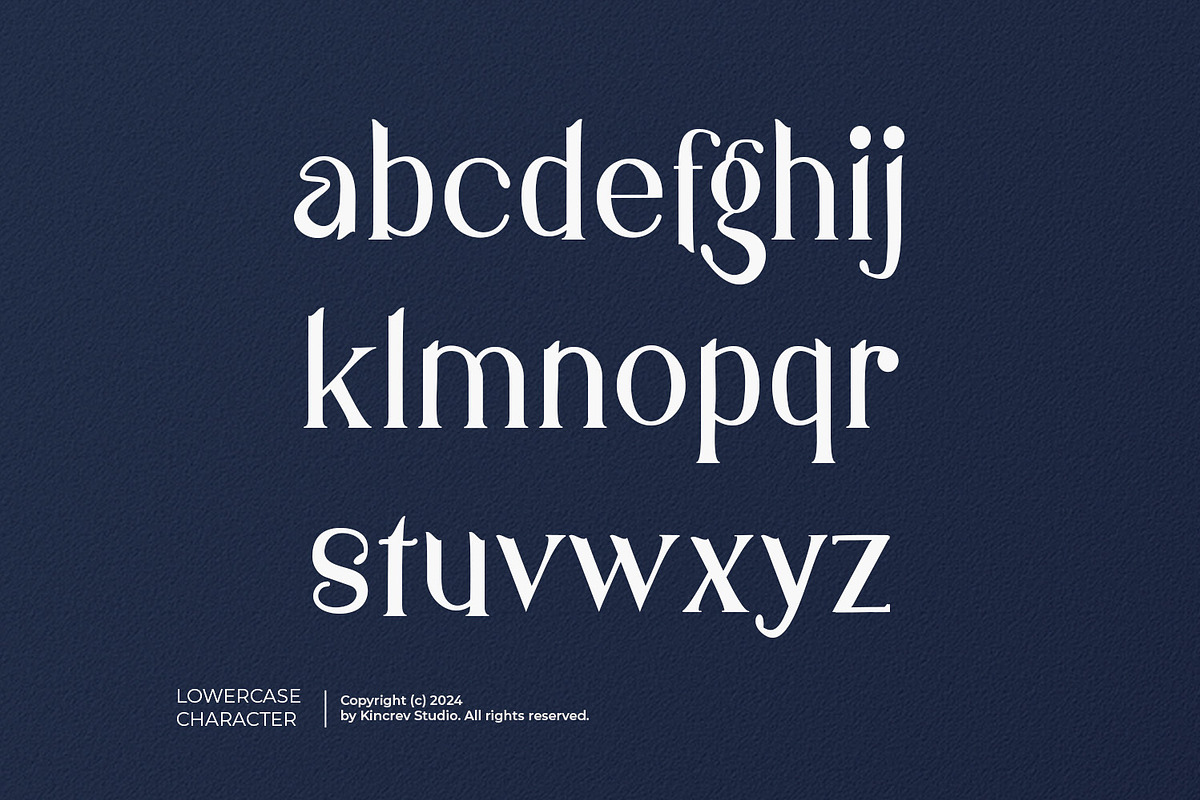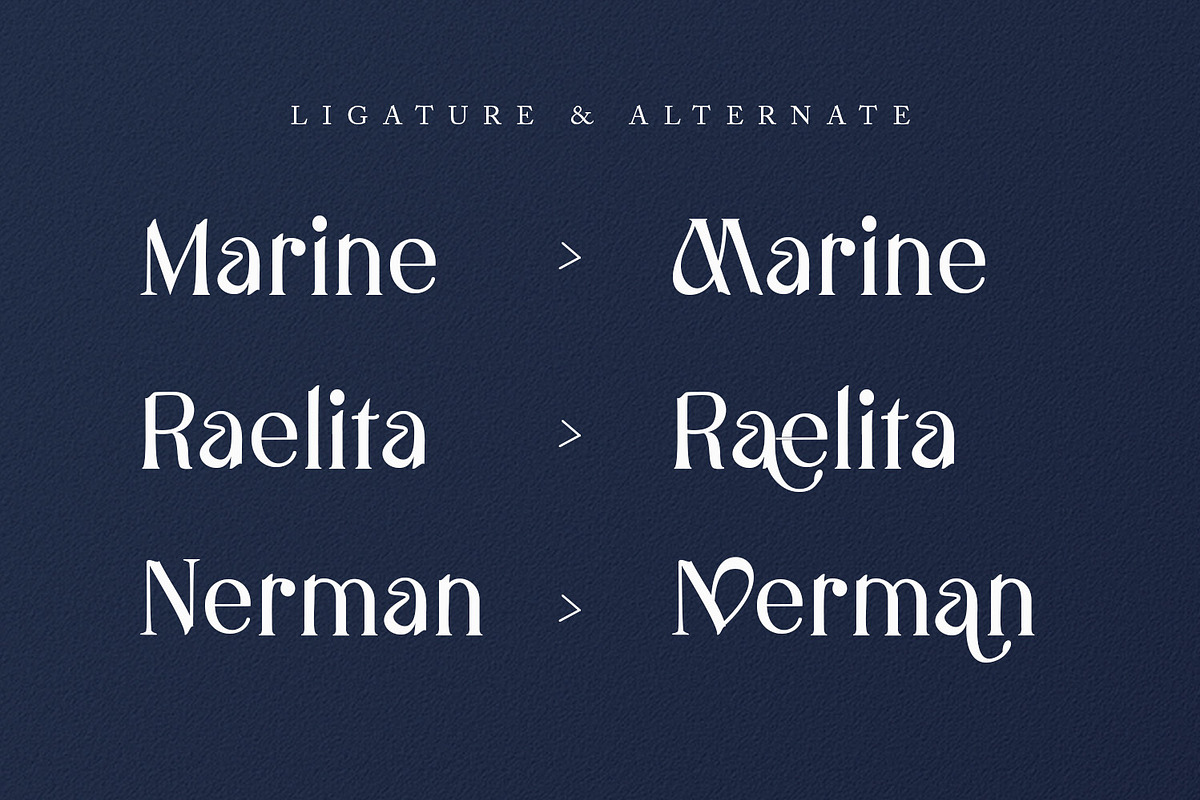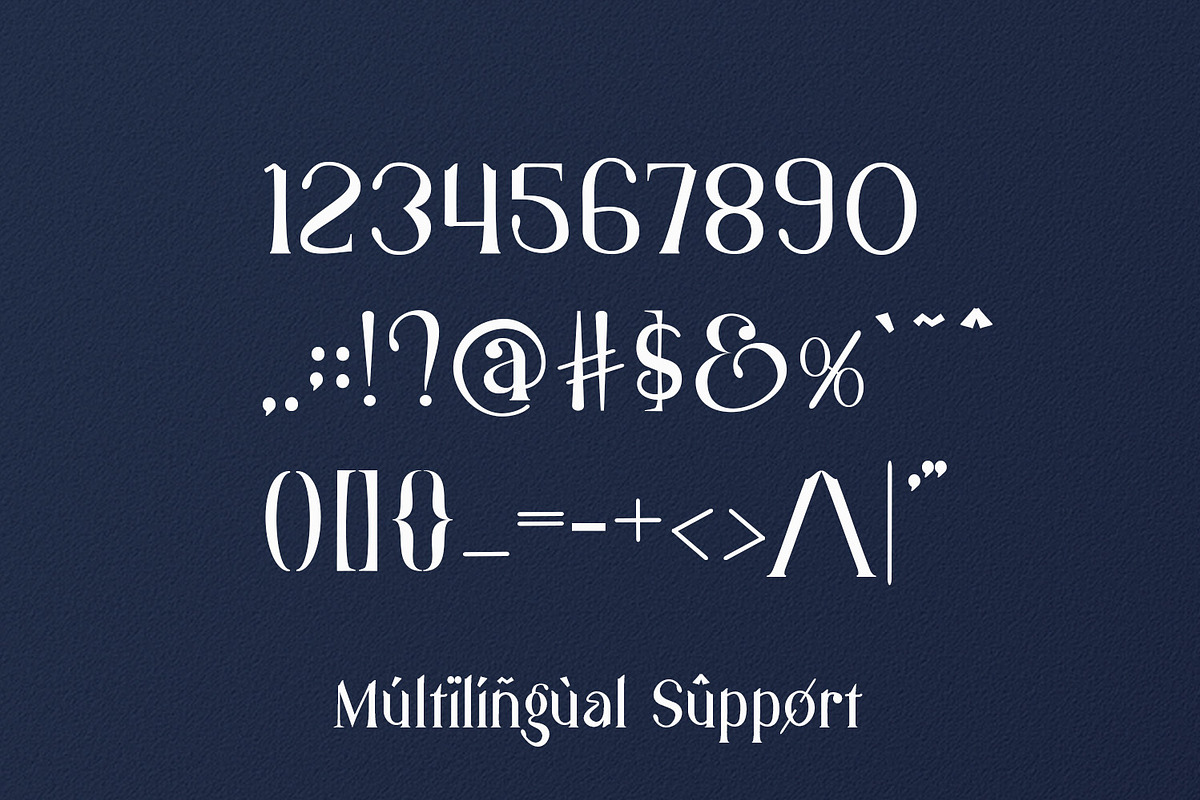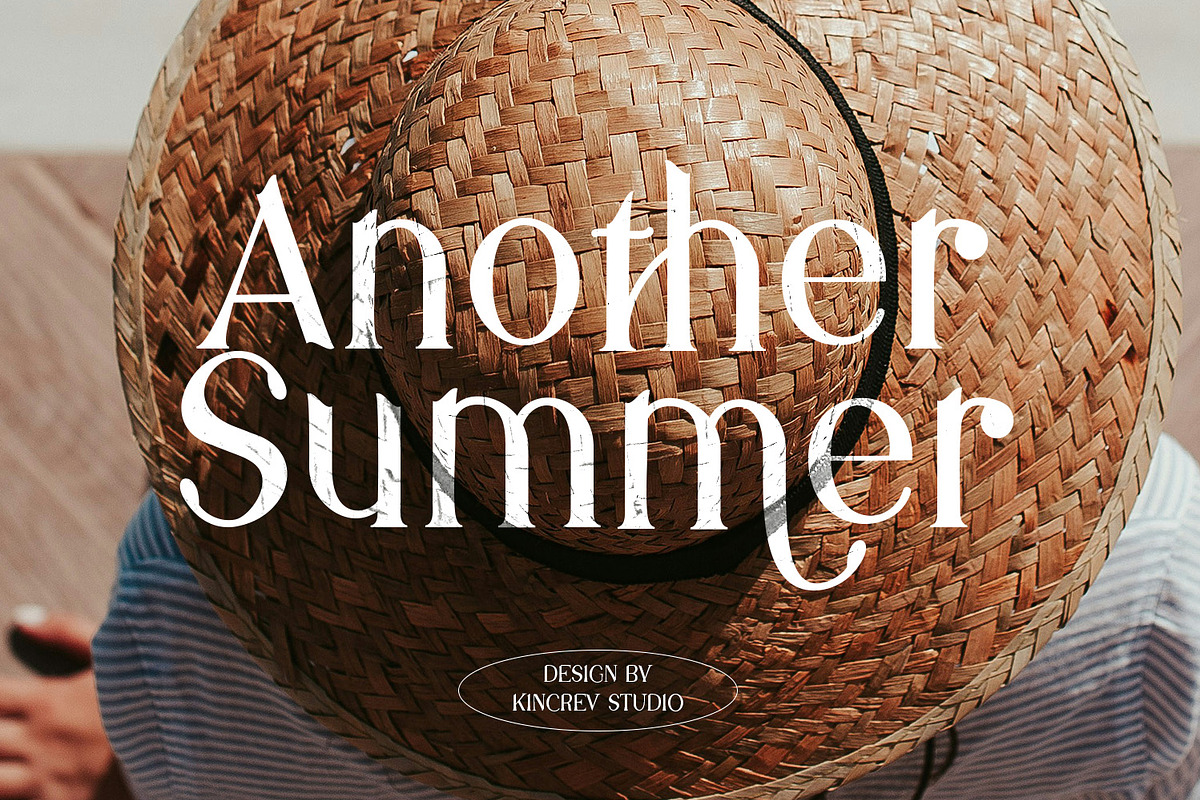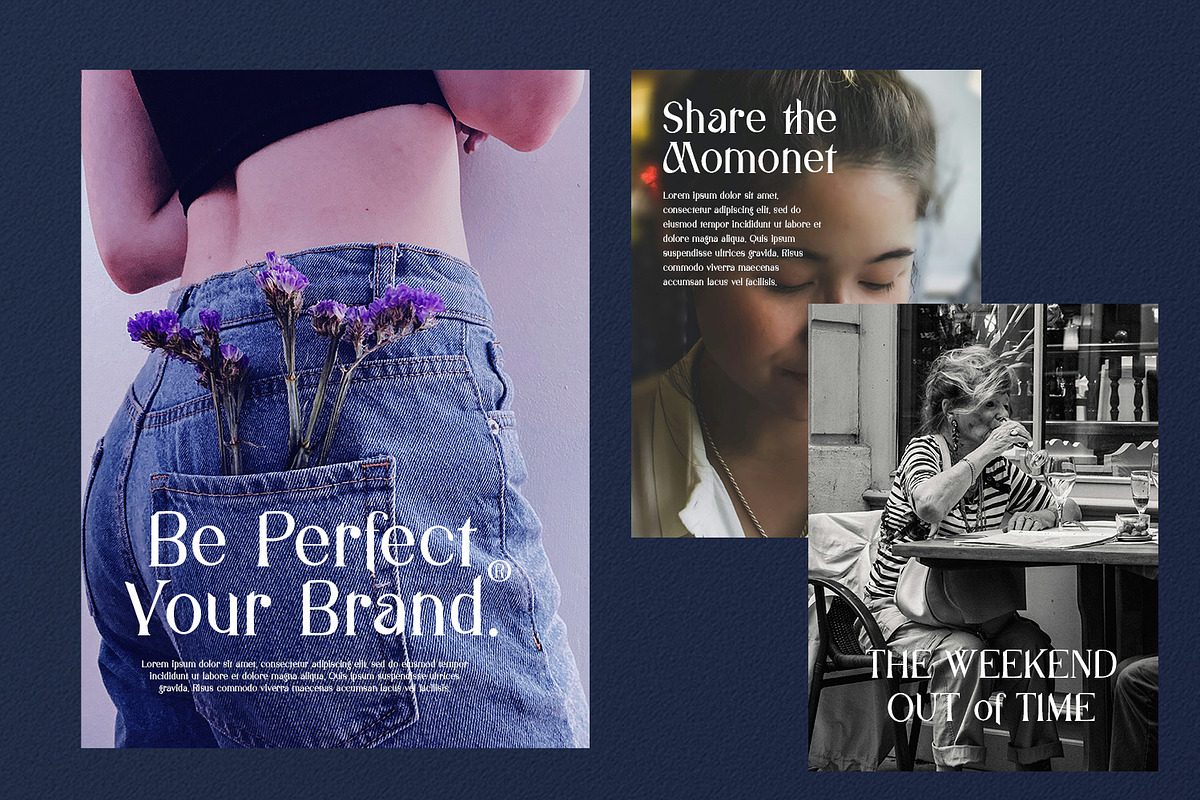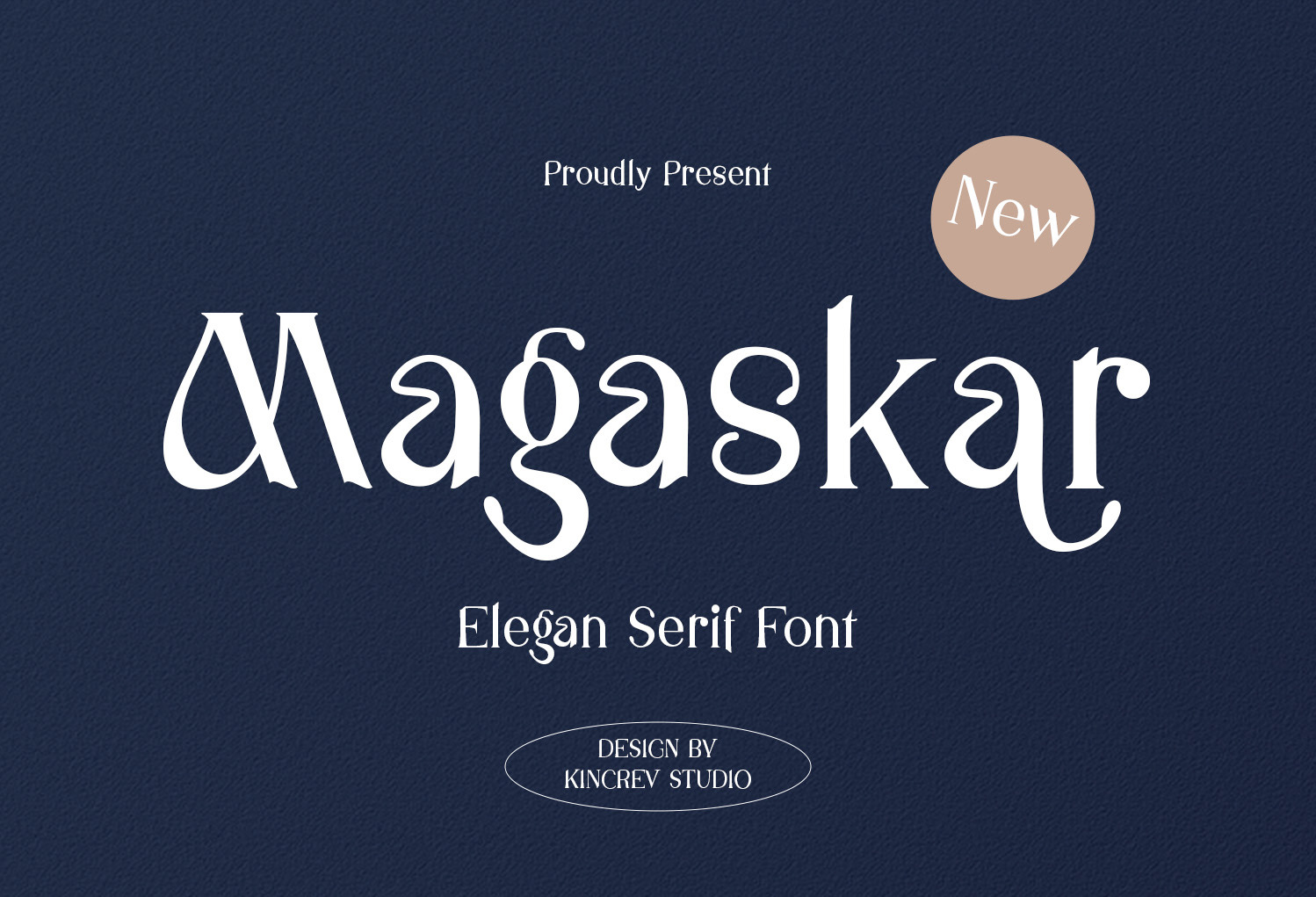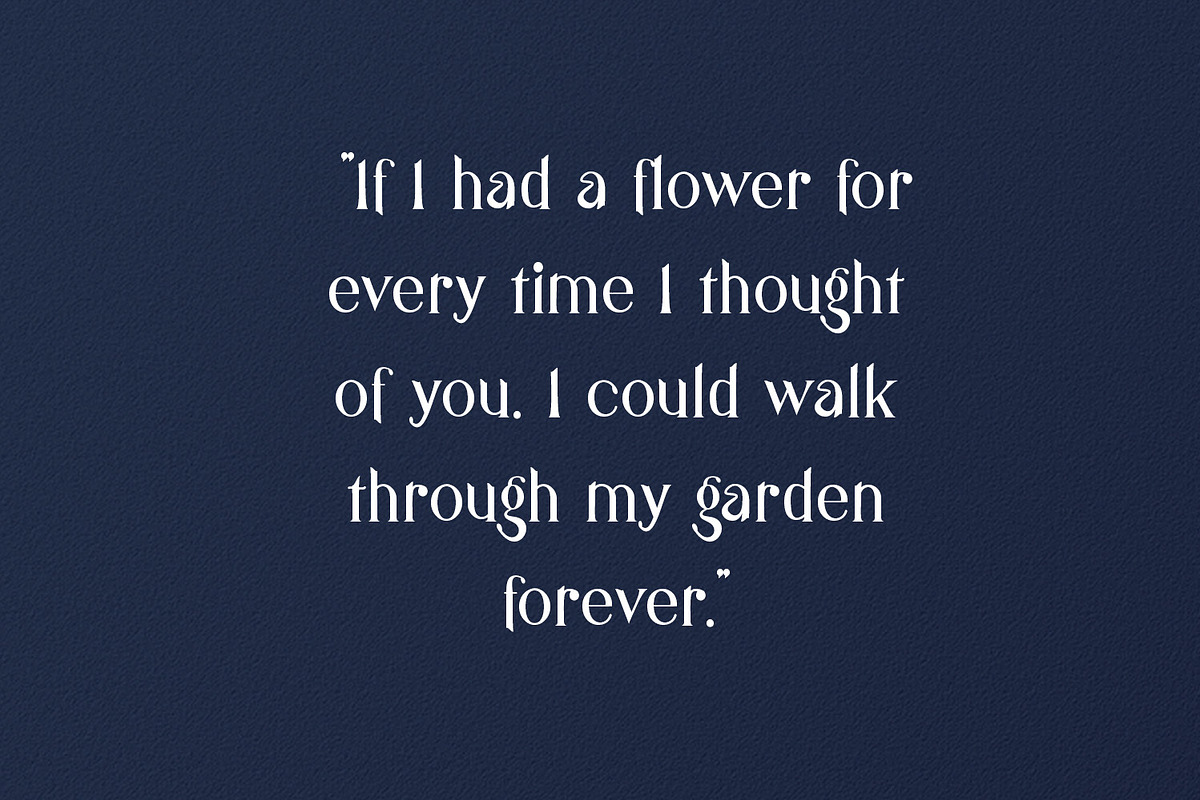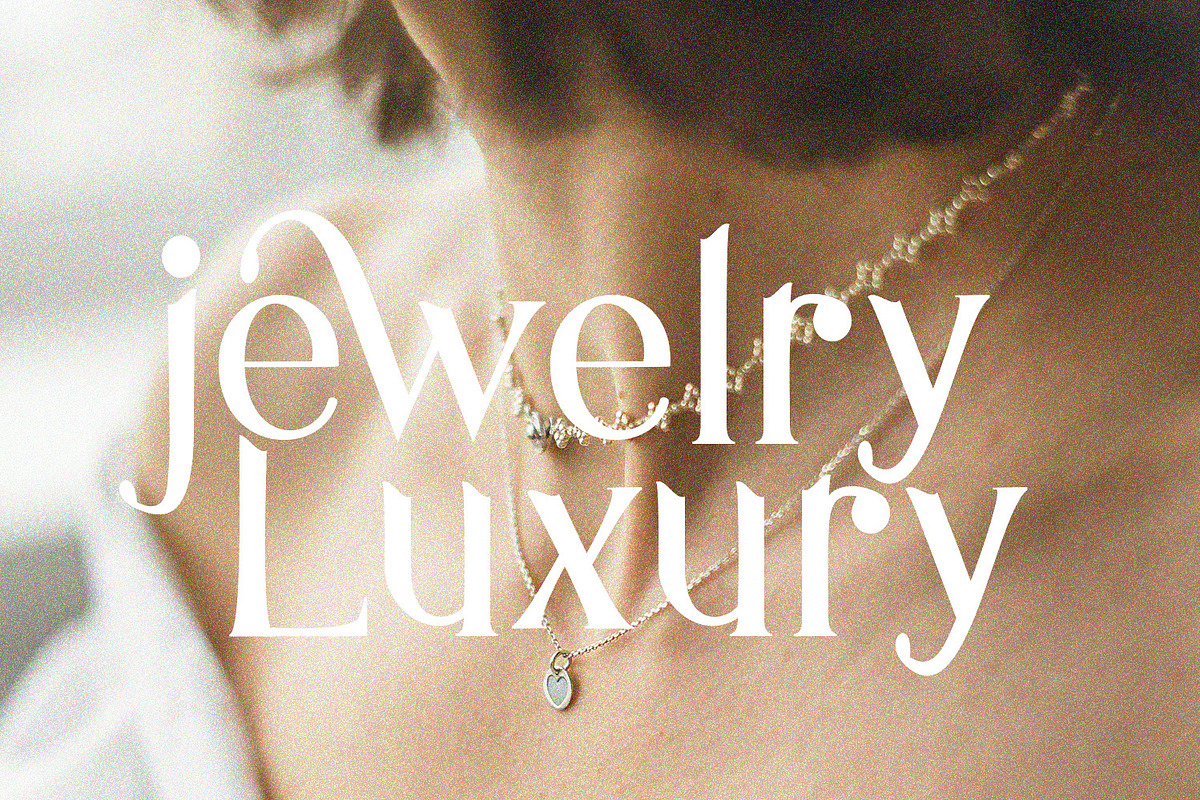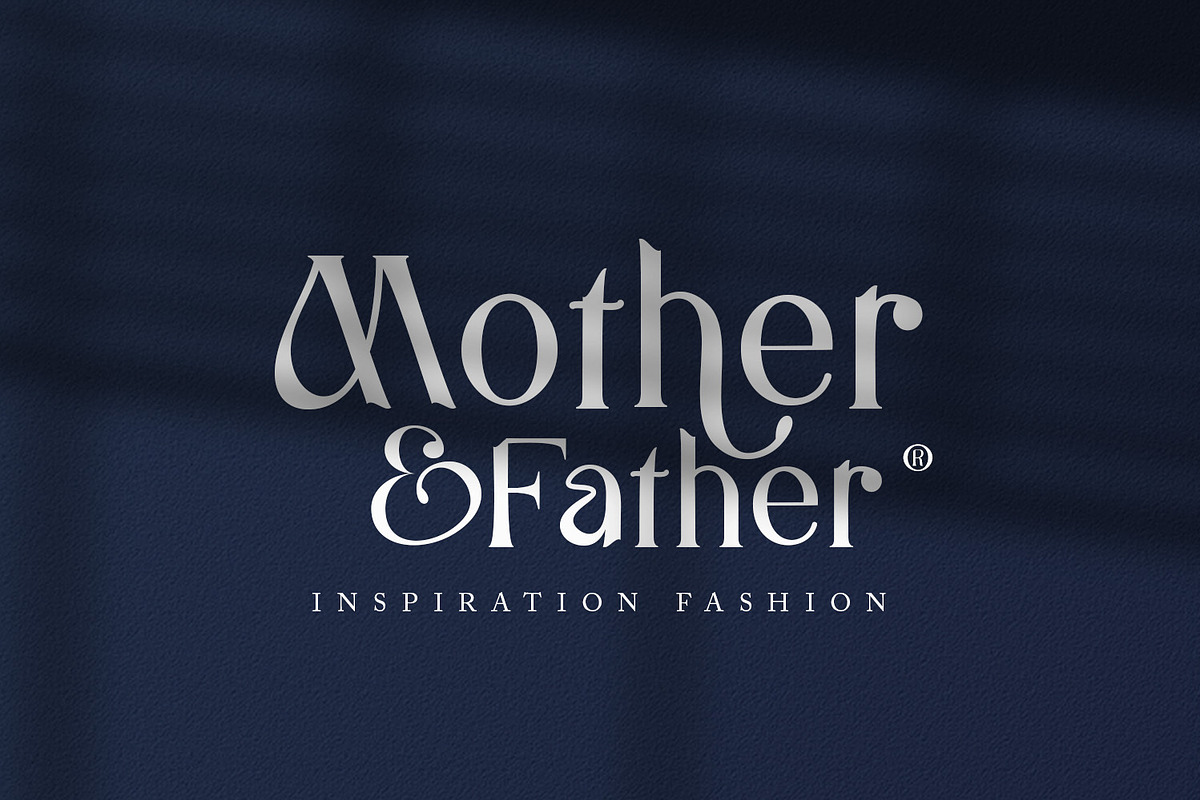
Magaskar - Elegan Serif Font
Hello, Everyone! Ready to make your branding design outstanding? If you need to create a stylist, elegant, and modern look for your business, work on a poster for an event, or whatever your projects are, Magaskar is the perfect one for you.
Magaskar, a serif font is font for you to get your designs with stylist, elegant, and modern look. It is made in uppercase & lowercase letters which are simple and easy on the eyes and nice to look at, and easy to read. This font is designed to bring your brandings to life and add a touch of sporty modern, bold, fun and style.
- Ligature & Alternate